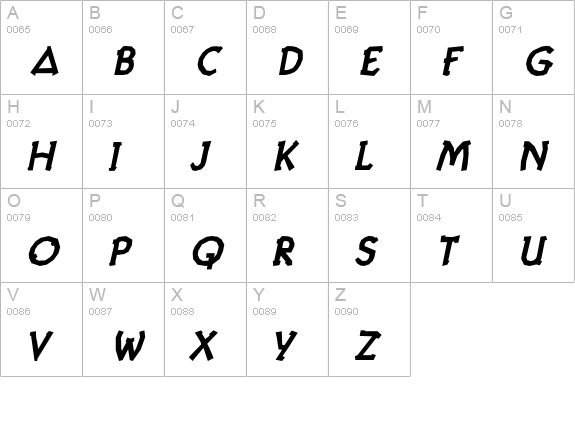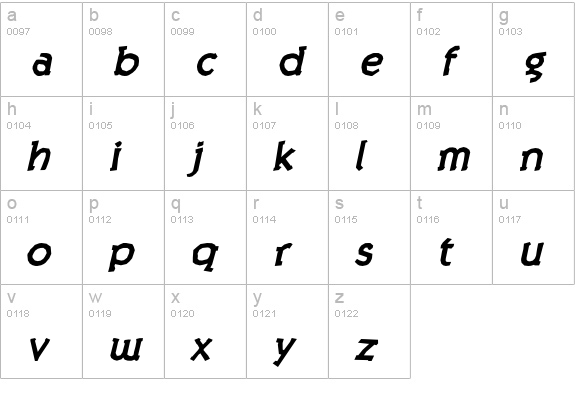
Twig Bold Oblique is a strong, high-contrast, italic variant in the Twig typeface family \xE2\x80\x94 well suited to headlines, attention-grabbing titles, and strong calls-to-action.
Twig Bold Oblique is a captivating and versatile font that effortlessly combines elegance with a touch of playfulness. With its unique slanted design, this font exudes a sense of dynamism and creativity, making it perfect for various design projects. The bold and oblique nature of Twig Bold Oblique adds a sense of depth and dimension to any text, ensuring that it stands out and leaves a lasting impression. Whether used for headlines, logos, posters, or branding materials, this font commands attention and effortlessly captures the essence of modern design. One of the greatest advantages of Twig Bold Oblique is that it is available for free download at FontsMarket.com. This means that designers and creatives alike can easily access this stunning font and incorporate it into their projects without any hassle. The freedom to experiment and explore the potential of this font is truly invaluable, allowing for endless possibilities and boundless creativity. With its clean lines, smooth curves, and stylish slant, Twig Bold Oblique is a font that effortlessly combines contemporary design with a hint of sophistication. Its versatility ensures that it can be used across a wide range of industries and applications, from fashion and beauty to technology and advertising. In conclusion, Twig Bold Oblique is a font that is not only visually striking but also freely available to download at FontsMarket.com. Its bold and oblique design, coupled with its versatility and accessibility, make it an essential addition to any designer's toolkit. Embrace the freedom to create and elevate your designs to new heights with Twig Bold Oblique.